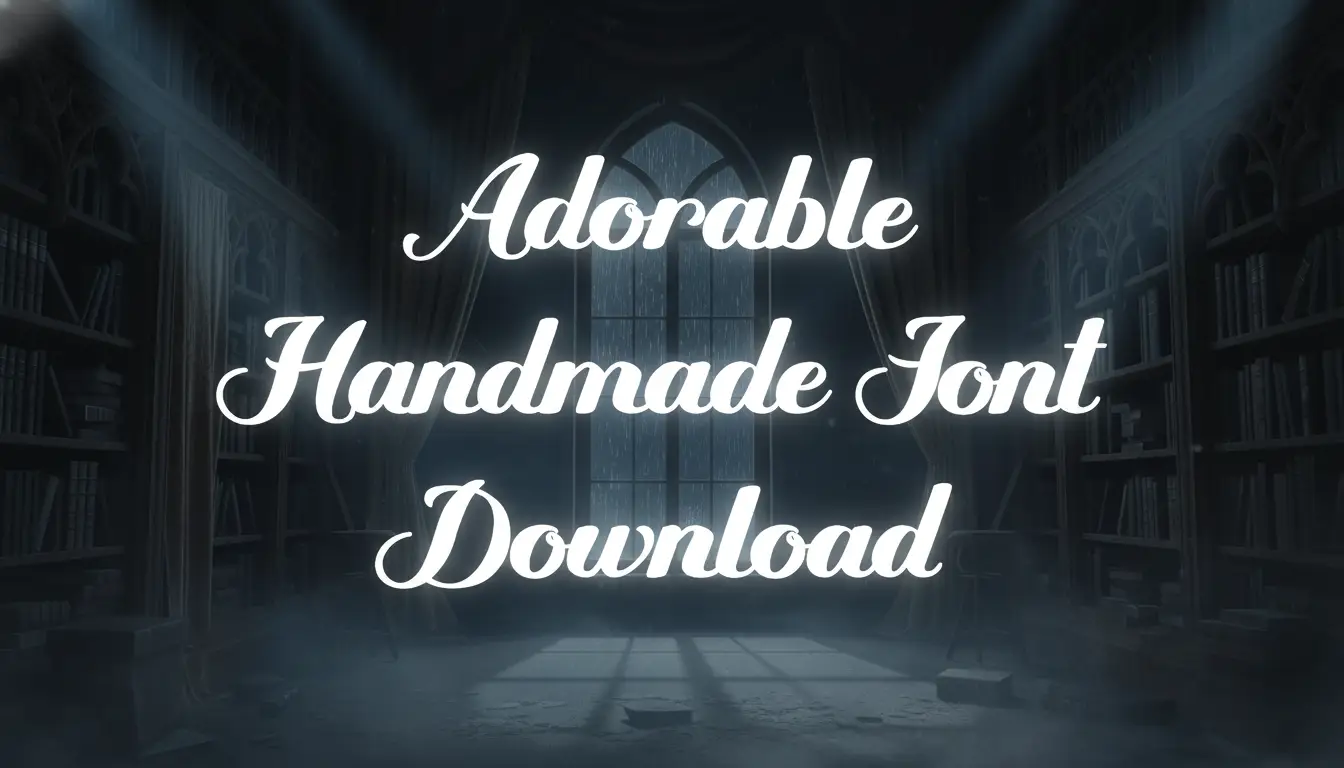
Adorable Handmade Font
Adorable Handmade
Adorable Handmade is a script font designed by CAT.B. It has that hand-lettered, flowing feel people look for when regular type seems too stiff. It's a free download, and you can try it with your own text in the preview above first.
Adorable Handmade covers the full alphabet in upper and lowercase, plus all ten numbers, so you can set names, dates and prices without switching fonts. Common punctuation such as &, !, ? and @ is included as well. It also has the accented letters you need for Spanish, French, Portuguese and Italian.
Designers usually reach for fonts like Adorable Handmade when they're making wedding invitations, logos and signature-style headings. Script fonts read best in short bursts, so keep it to names, titles and one-line quotes. Skip all caps: script capitals are drawn to start a word, not to fill one.
Yes. Adorable Handmade includes the accented letters needed for Spanish, French, Portuguese and Italian, so it works for more than just English.